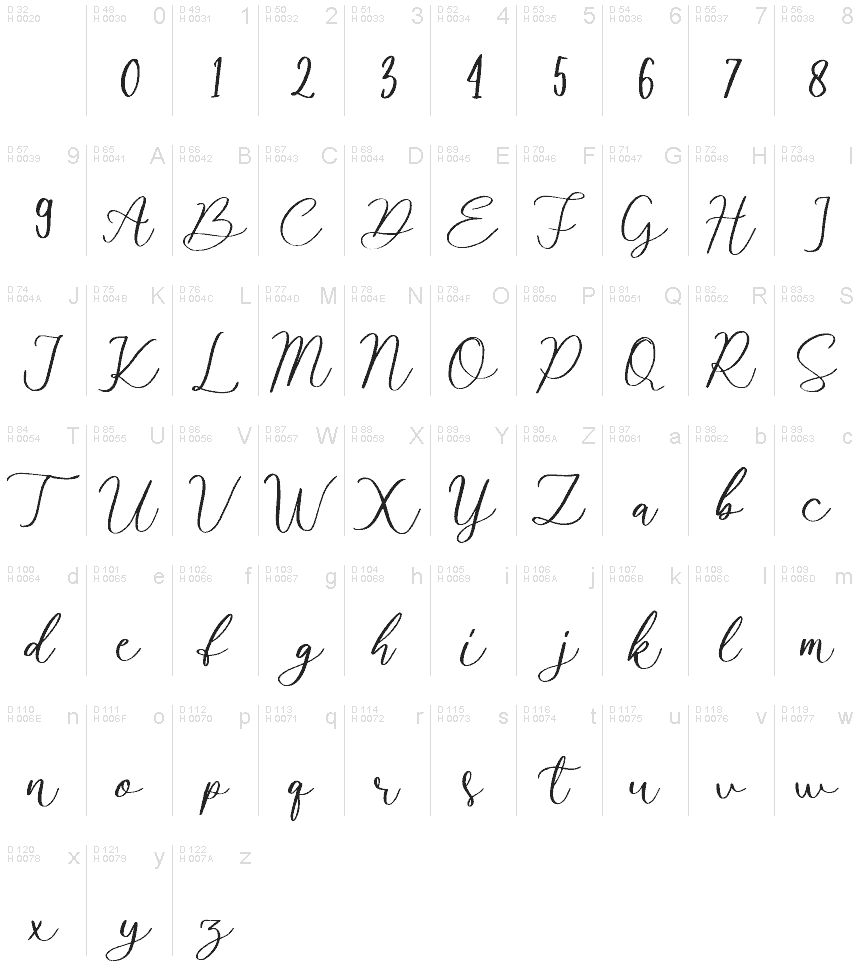
Byefour Regular
Byefour font by Craft Supply Co. is a free handwritten font delightfully flowing with the sophistication and grace characteristic of modern calligraphy. It features graceful curves and an elegantly thin light-weight design that gives it a quintessential decorative elegance.